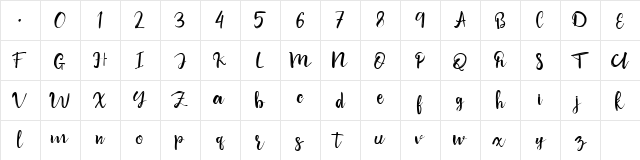
Wildest Dream Regular Free Font
Wildest Dream Regular
Designer: Ferdiansyah
Design Context for Wildest Dream
Wildest Dream is a composed and adaptable typeface that performs quietly and consistently across a wide range of design contexts.